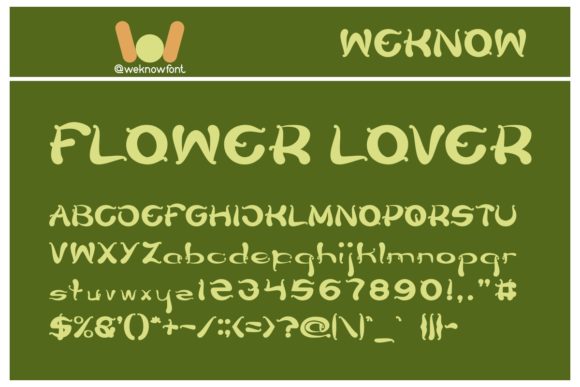
Embrace the beauty of blooming creativity with Flower Lover Font, a captivating display font ready to add a touch of charm and elegance to your designs. Let your imagination blossom as you explore the enchanting world of typography with this delightful font, meticulously crafted to evoke a sense of timeless allure.
Step into a realm where letters dance with grace and harmony, where every word paints a story, and every design captivates. Flower Lover Font is a symphony of flowing lines and delicate curves, drawing inspiration from the delicate petals of a blooming flower. Its intricate details, reminiscent of nature's artistry, will infuse your projects with a sense of organic beauty.
Picture your designs adorned with the timeless elegance of Flower Lover Font. Whether you're crafting logos, branding materials, website designs, or social media graphics, this font will effortlessly elevate your creations to new heights of sophistication. Its versatile style effortlessly adapts to a wide range of design aesthetics, from classic and traditional to modern and contemporary.
Unleash your creativity and let Flower Lover Font guide you on an artistic journey like no other. Its enchanting allure will transform your designs into captivating masterpieces, leaving a lasting impression on your audience. Embrace the power of typography and watch as your words bloom into visual poetry.
Don't settle for ordinary fonts that blend into the background. Choose Flower Lover Font and embark on a creative odyssey where your designs flourish with captivating charm, leaving a trail of beauty and inspiration wherever they go. Discover the magic of this font and unlock a world of endless creative possibilities.